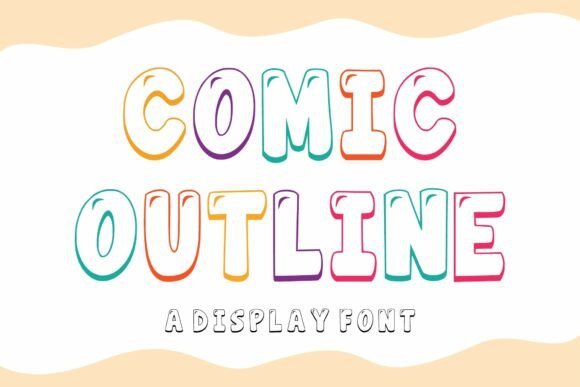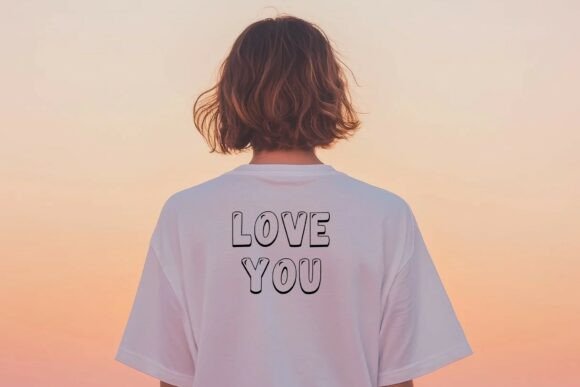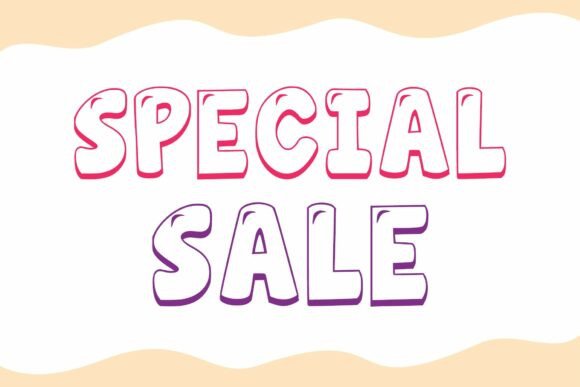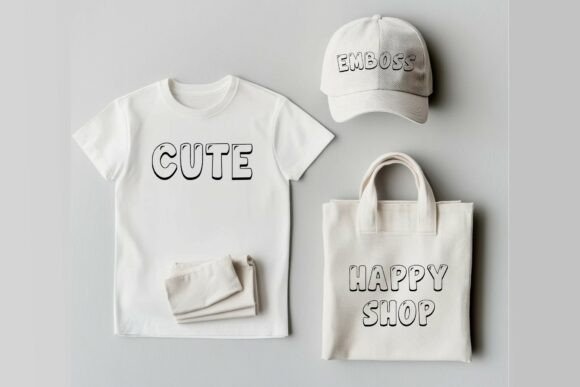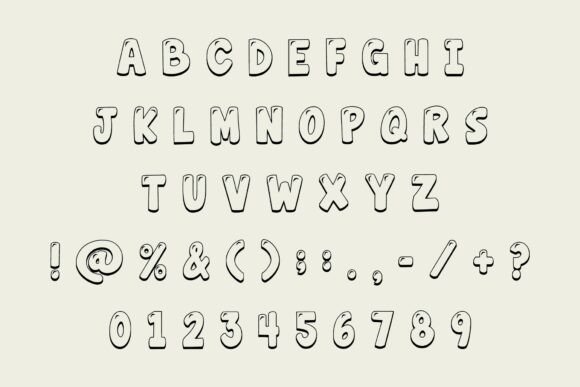
Bringing Back the Nostalgia: Introducing the Comic Outline Font
Do you remember the thrill of flipping through comic books on a lazy Sunday morning, the vibrant colors and bubbly energy transporting you to a world of wonder? As designers, we’re always on the lookout for ways to tap into that same magic in our work. That’s where the Comic Outline Font comes in – a delightful typeface that captures the essence of classic cartoons and brings it to life in the digital age.
With its thick, rounded outlines and internal “shine” highlights, this font is perfect for designers looking to add a touch of whimsy and fun to their projects. Whether you’re creating a children’s book title, designing a gaming interface, or crafting a vibrant toy package, the Comic Outline Font is sure to make your message pop against even the busiest of backgrounds.
- Unique Characteristics: The font features a distinctive outline style, with bold lines and minimal fill, allowing for easy readability and a dynamic visual effect.
- Flexibility: Comic Outline Font is highly versatile, suitable for use in a range of comic book genres, from action-adventure to romance and fantasy.
- Legibility: The font’s clean design and clear letterforms ensure excellent legibility, even at small font sizes, making it an ideal choice for comic book and graphic novel creators.
Comic Outline Font Review
Overall, I think the Comic Outline Font is a great addition to any designer’s toolkit. It’s got a fun, playful vibe that’s perfect for comic books, children’s books, or even advertising materials.
- ✨ Unique and quirky style that adds a lot of personality to a design
- ✨ Works well for bold, attention-grabbing headlines and titles
- ✨ Easy to read, even at small font sizes
That being said, there are a few limitations to keep in mind:
- ⚠️ May not be suitable for formal or professional designs
- ⚠️ Can be a bit too playful for some audiences (e.g. financial reports, technical documentation)
- ⚠️ May not have as many language support options as other fonts
Overall, I’d say the Comic Outline Font is a great choice for designers looking for a fun, eye-catching font. Just be mindful of the limitations and use it in the right context.
Comic Outline Font is ideal for:
- Comic book-inspired designs
- Cartoon-style animations
- Playful advertising campaigns
Remember to experiment with different font sizes, colors, and combinations to get the most out of Comic Outline Font.
Alternatives to Comic Outline Font
The Great Vibes Font is a modern, script font that offers a unique and playful feel. It is suitable for use in titles, headings, and other design elements where a casual, friendly tone is desired.
Compared to Comic Outline Font, Great Vibes has a more refined and elegant look, making it a better choice for designs that require a touch of sophistication. However, both fonts share a similar laid-back and casual feel.
The Pacifico Font is a beautiful, handwritten font that is perfect for use in designs that require a relaxed and beachy vibe. It is ideal for titles, headings, and other design elements where a calm and soothing tone is desired.
Compared to Comic Outline Font, Pacifico has a more elegant and refined look, making it a better choice for designs that require a touch of sophistication and elegance. However, both fonts share a similar casual and laid-back feel.